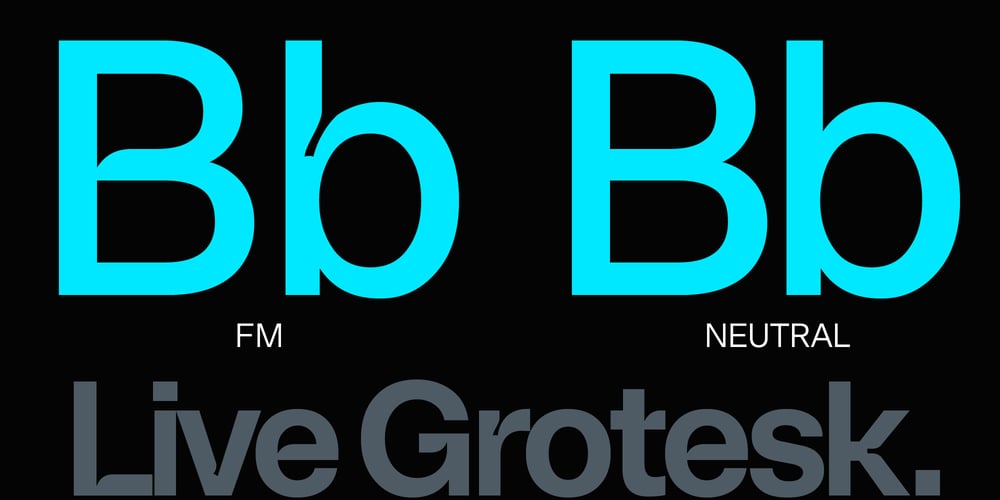
Live Grotesk
Live Grotesk font
Live Grotesk Font Family was designed by Matt Chansky and published by Matt Chansky. Live Grotesk contains 16 styles and family package options. An exquisite neutral body copy and memorable modern headline font – all under one pixel-perfect font family.Live Grotesk is no ordinary font, in fact it’s two fonts in one, seamlessly working together. When big messaging requires a charismatic headline font to activate layout designs, amplify attention, and delight audiences with brand retention – turn on “FM,” Live Grotesk’s headline font. When you need a body copy font that is space-efficient, a highly refined neutral with a high x-height to help with readability, particularly on screens – Live Grotesk is for you. Stylish simplicity and neutrality are key components of the signature body copy look. This is why Live Grotesk is a uniquely crafted modern font for today’s modern creatives.With a variety of weights, from light to bold, you’ll also enjoy the robust offering of multilingual glyphs, plus a handful of extras like the estimated symbol, directional arrows, and helpful UX characters.When the creative direction calls for memorable, approachable, and consumable typography, consider Live Grotesk to elevate your marketing tactics. It’s a font alive with versatility, that’s why it’s called Live Grotesk.